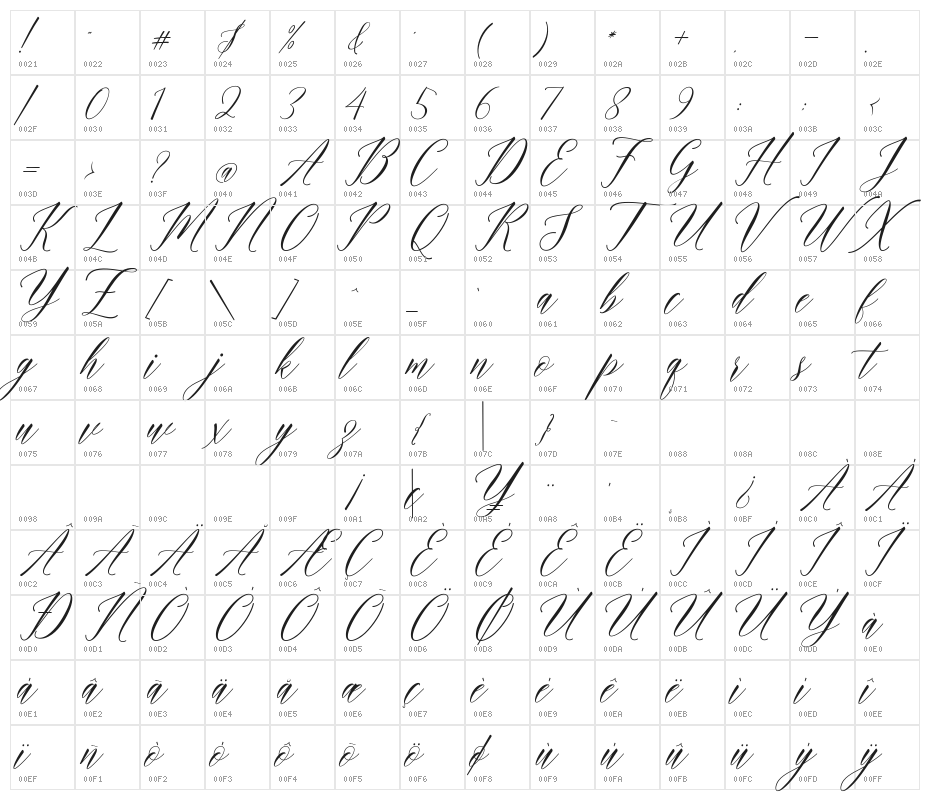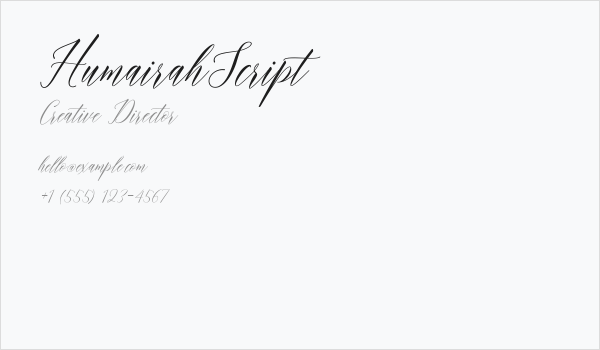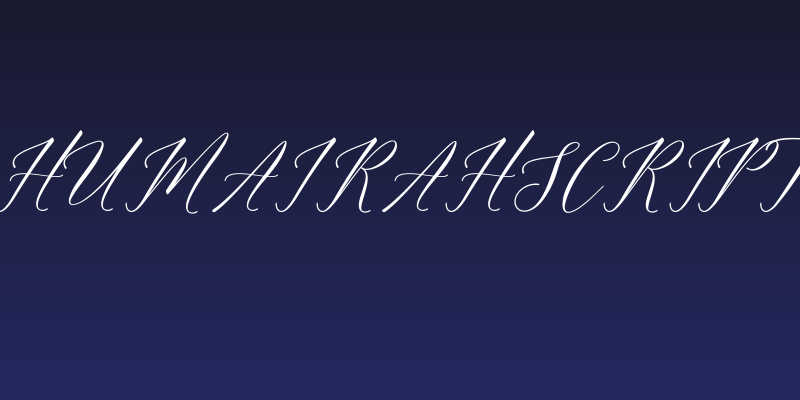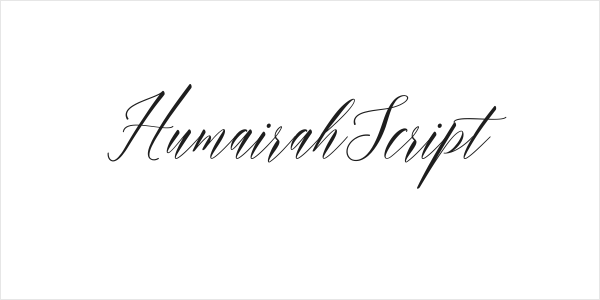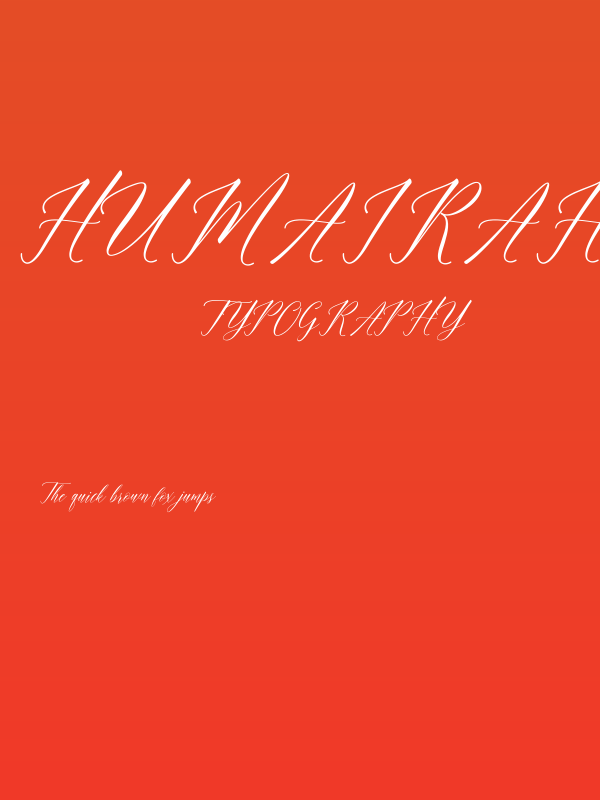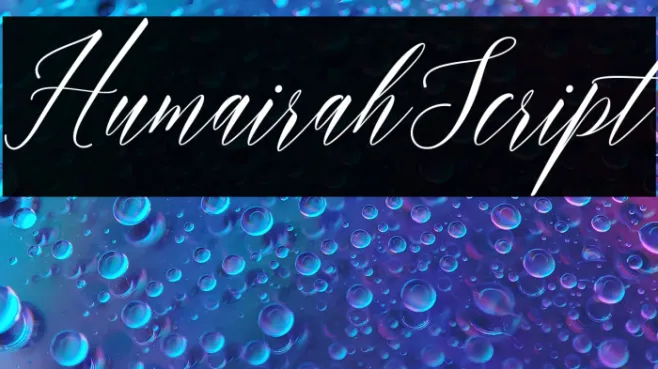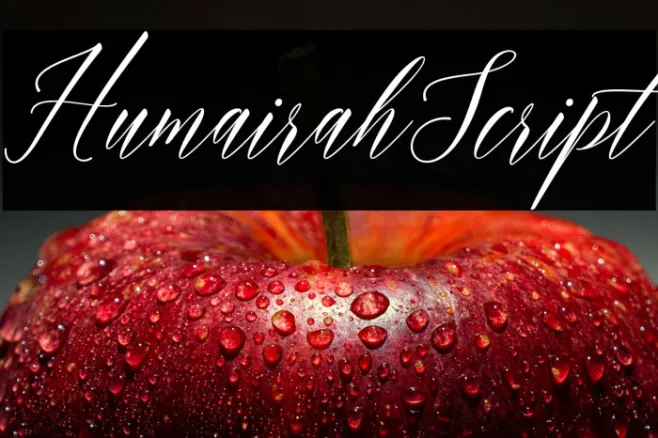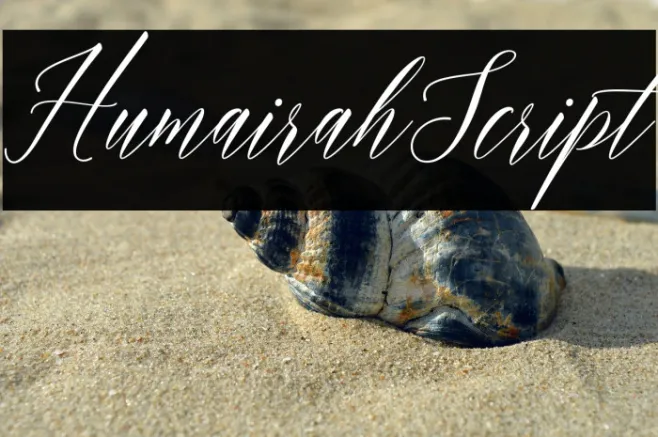
HumairahScript Font
HumairahScript Description
This elegant script font features a flowing, cursive style with graceful loops and swashes. The uppercase letters are tall and slender, with a slight slant that adds a sense of movement and fluidity. Lowercase letters are connected, enhancing the script's natural flow. The numerals are consistent with the overall style, maintaining the same elegant curves. Special characters are designed to complement the script, with a harmonious balance between form and function. The font's delicate lines and sophisticated appearance make it ideal for formal invitations, branding, and any project requiring a touch of elegance.
| Use Case | Headlines, Invitations, Branding |
| Proposed Projects | Ideal for wedding invitations, elegant branding, personal stationery, and luxury product packaging. |